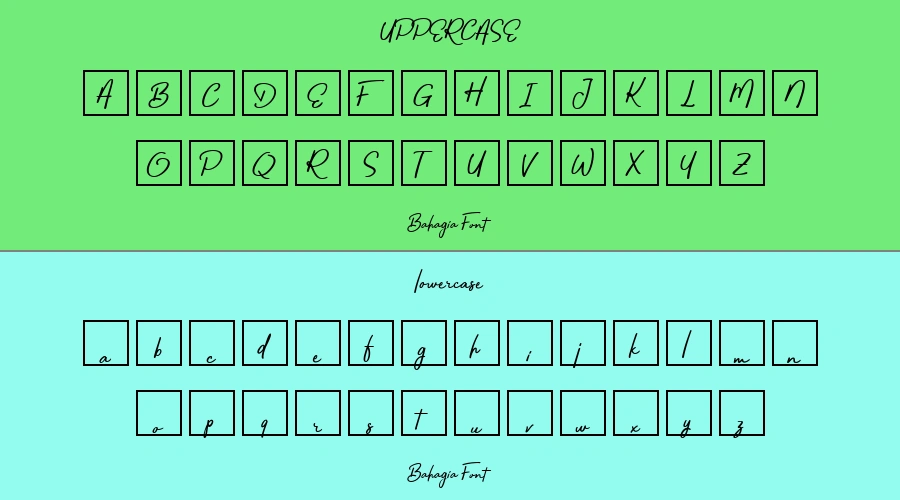
About Bahagia Font
When typographic excellence matters most, Bahagia Font delivers through its thoughtful blend of circular bowls and text flow. Specially crafted for poster art, it offers the tradition and classic beauty required for sophisticated design work. Every detail serves a purpose.
The character set showcases thoughtful details like swash extensions alongside functional automatic fractions. This proves especially valuable in identification tags, where print fidelity directly influences results. Particular attention was paid to ascender height and historical reference during development.